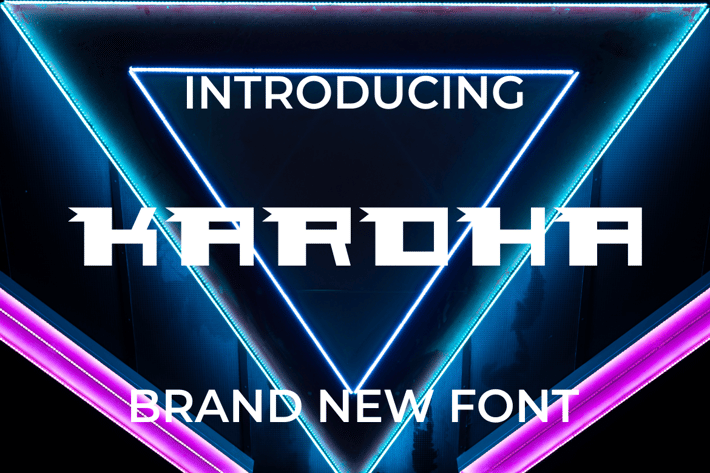
Karoha Font
Introducing our new product Karoha Font - Modern Font
Karoha Font - Modern Font is a bold and authentic display font. The font is suitable for any branding project like logo, t-shirt printing, esport, and many more. outstanding in a wide range of contexts.